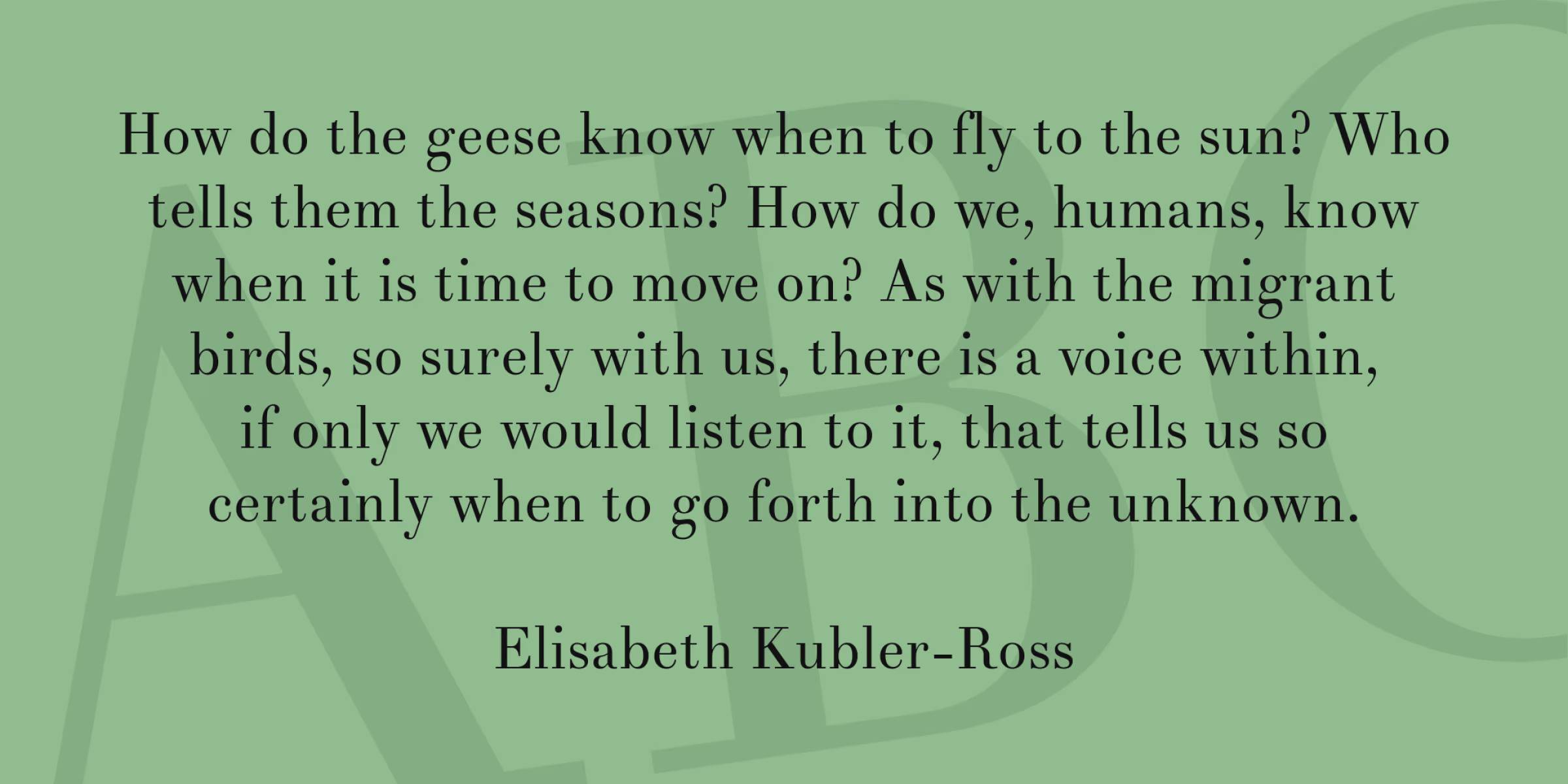
Theano fonts are a trademark I innovated, taking inspiration from the past, and since then, they have become a recognized trademark. Initially, they were developed exclusively as Greek fonts, but step by step, I identified the interest in expanding them by adding Latin letters while closely adhering to the typographic aesthetics of antique text editions.
To date, Theano fonts do not include additional styles or weights, nor do they fully encompass every character within Unicode. Only the standard Unicode set, including Latin, Greek, and Cyrillic alphabets (with polytonic support for Greek), has been incorporated, along with select non-standard characters that contributed minor aesthetic value to the overall layout.
Theano Didot Serif Font